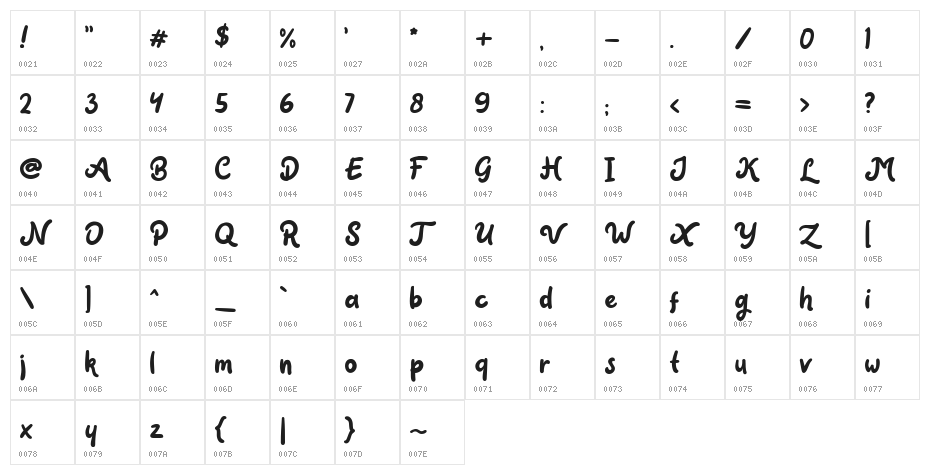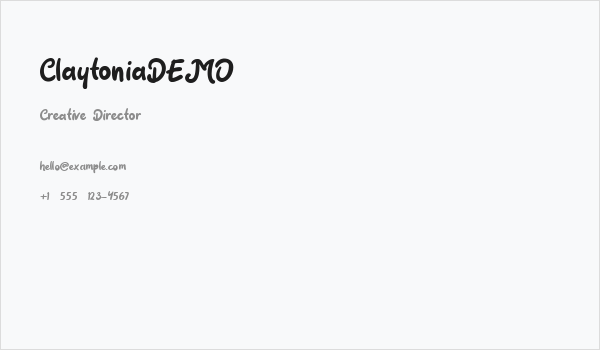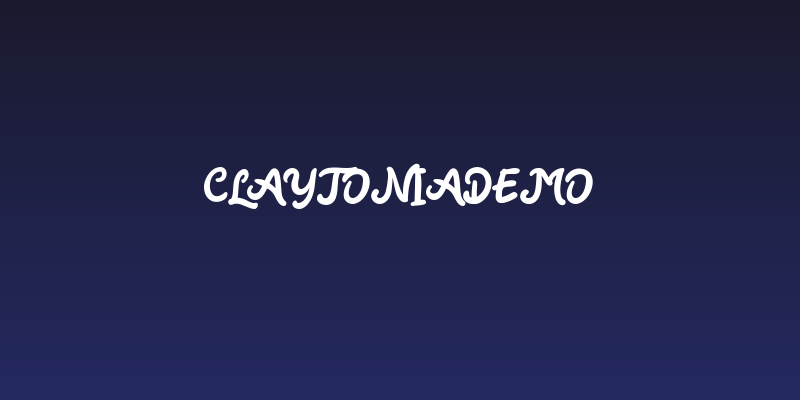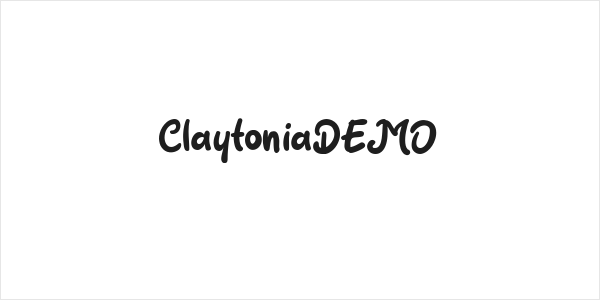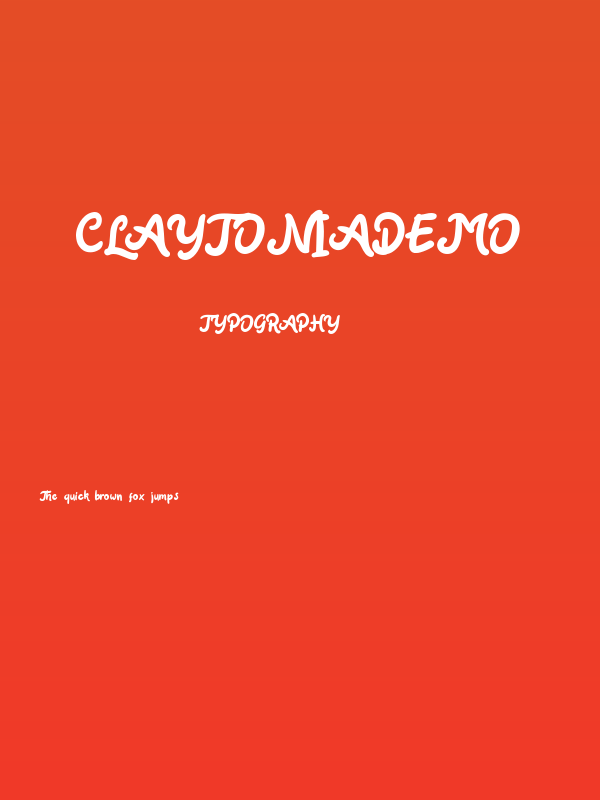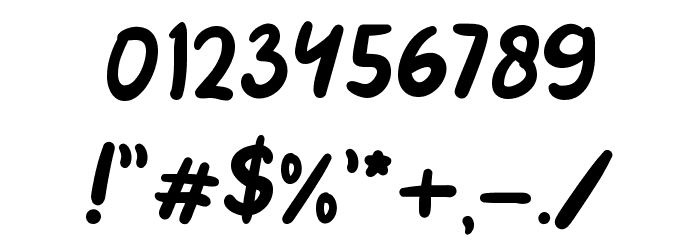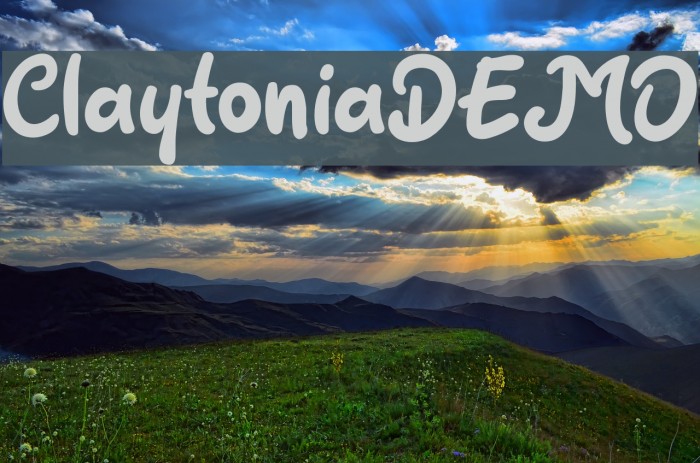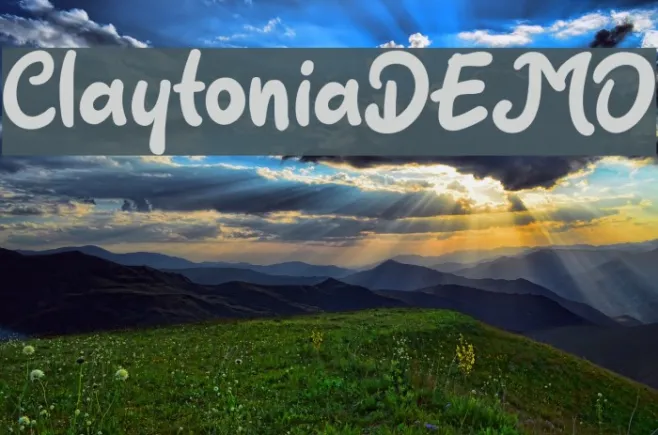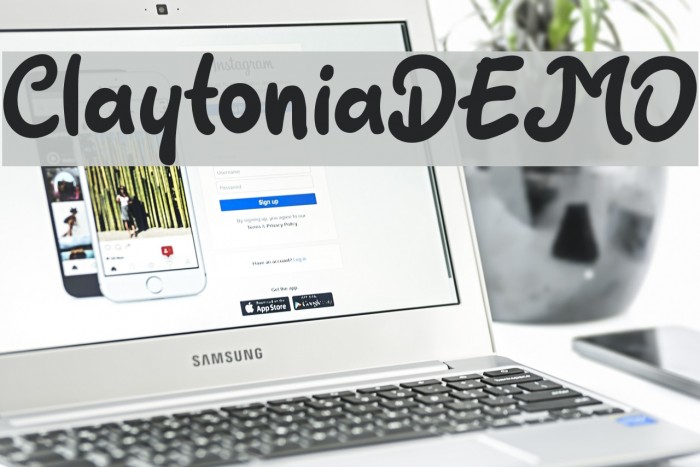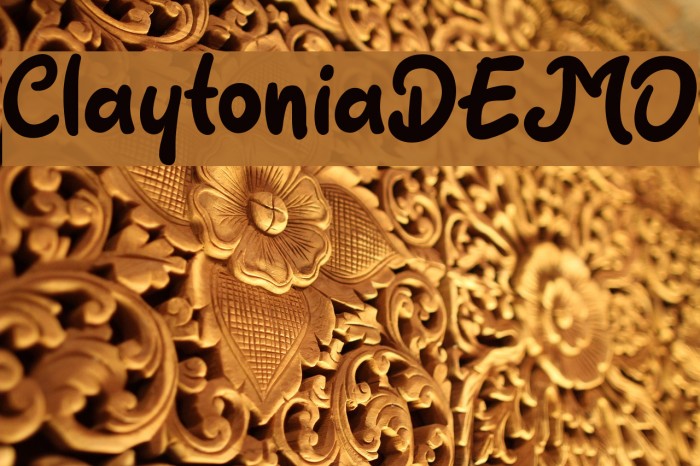
ClaytoniaDEMO Font
ClaytoniaDEMO Description
This font features a playful and bold script style with a handwritten feel. The characters are rounded and connected, giving it a smooth and flowing appearance. The uppercase letters are slightly larger and more pronounced, while the lowercase letters maintain a consistent size and style. The numerals and special characters are designed to match the overall aesthetic, ensuring a cohesive look. The font's thick strokes and rounded edges contribute to its friendly and approachable vibe, making it suitable for a variety of creative projects.
| Overall Style | Playful, Handwritten |
| Proposed Projects | Ideal for greeting cards, playful branding, children's books, and creative social media graphics. |